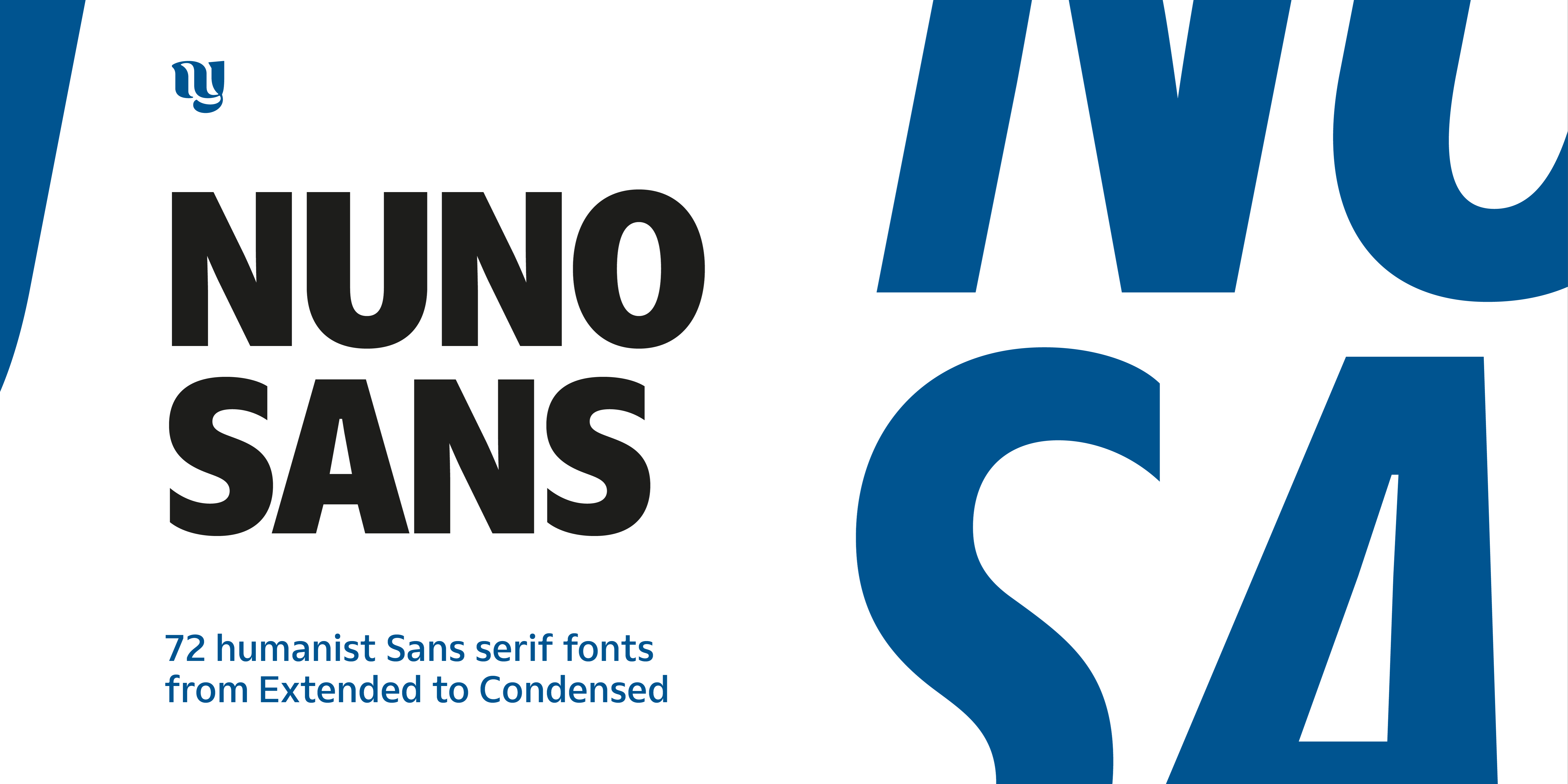
Nuno Font is incredibly versatile, making it perfect for a wide range of design projects. Imagine it gracing the headlines of a modern tech blog, providing a clean and readable body for an e-commerce product description, or adding a touch of sophistication to a wedding invitation. It's also an excellent choice for branding, app interfaces, editorial layouts, and even impactful social media graphics. Its legibility at various sizes makes it a go-to for both print and digital applications.
What makes Nuno Font so exciting is its harmonious blend of contemporary aesthetics and timeless functionality. It strikes a perfect balance between approachability and professionalism, ensuring your message is conveyed clearly and stylishly. The subtle humanist touches within its geometric structure give it a unique warmth that many sans-serifs lack, preventing it from feeling cold or generic. Designers love its clean lines and well-proportioned characters, which contribute to an overall sense of polish and refinement. This isn't just another font; it's a design asset that elevates any project it's used in.
The Nuno Font family is comprehensive, offering a robust selection of weights and styles to meet diverse design needs. Typically, you can expect to find weights ranging from a delicate Thin or Light, perfect for subtle accents, all the way up to a bold Black or Heavy, ideal for making a strong statement. Many families also include an Italic version for each weight, providing even more flexibility for typographic hierarchy and emphasis. This extensive range allows for incredible versatility and creative control within your designs, ensuring you can achieve the perfect visual tone every time. Don't miss out on